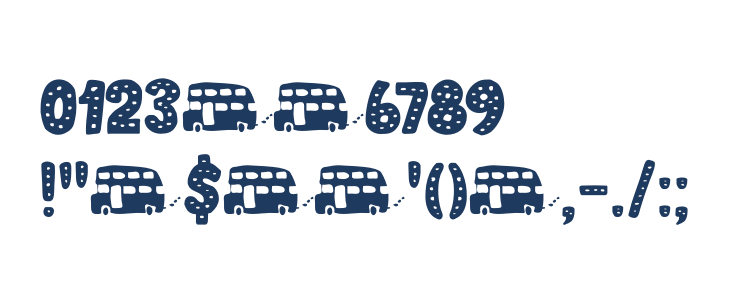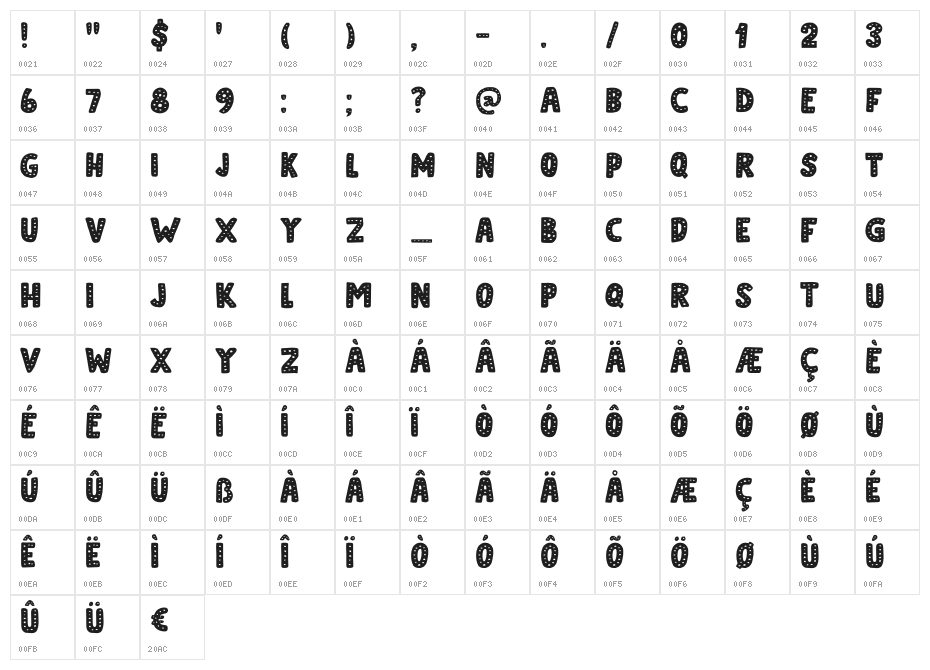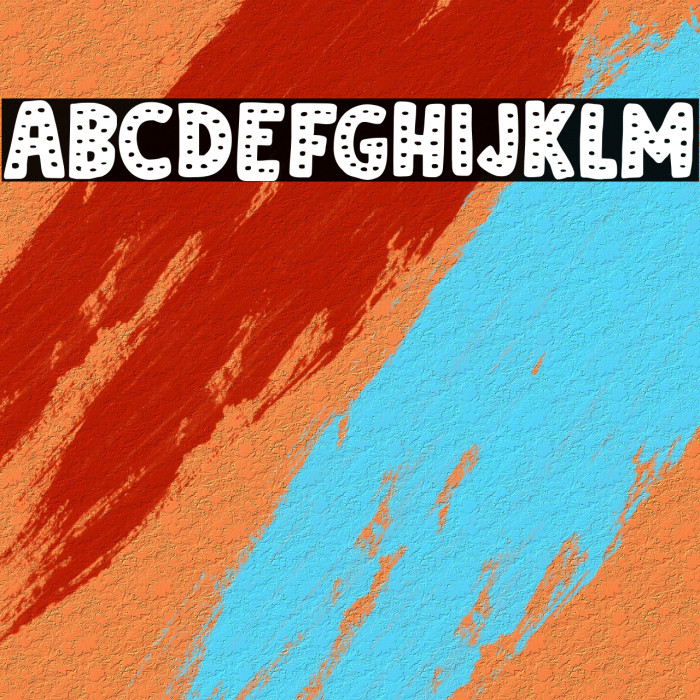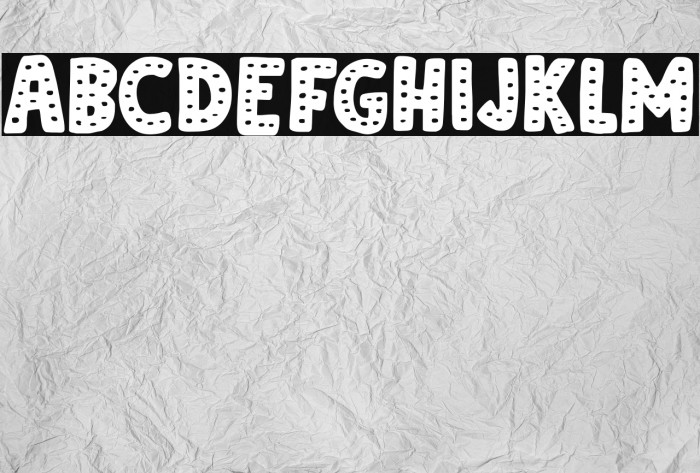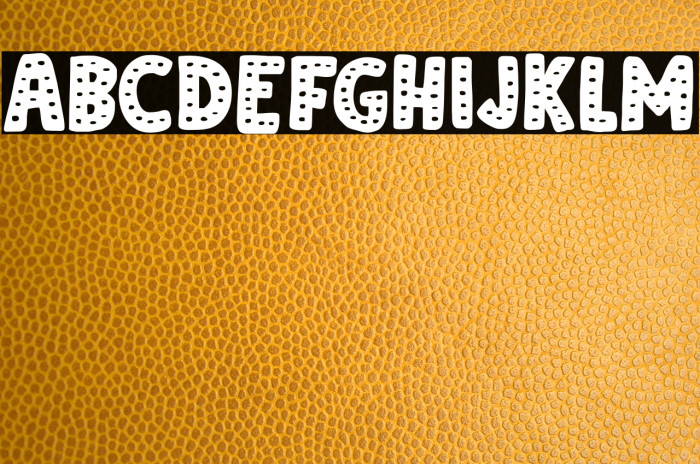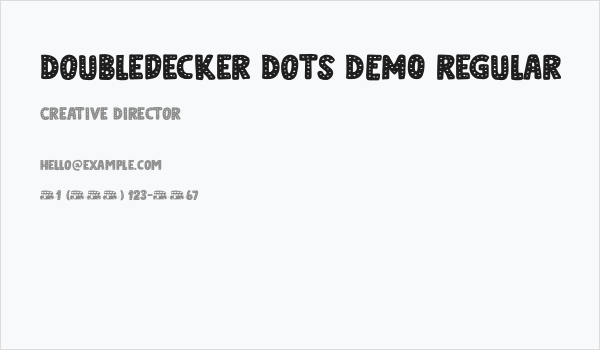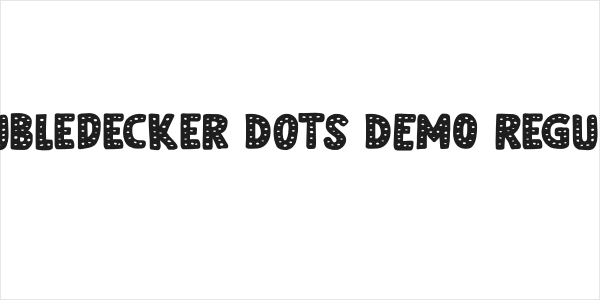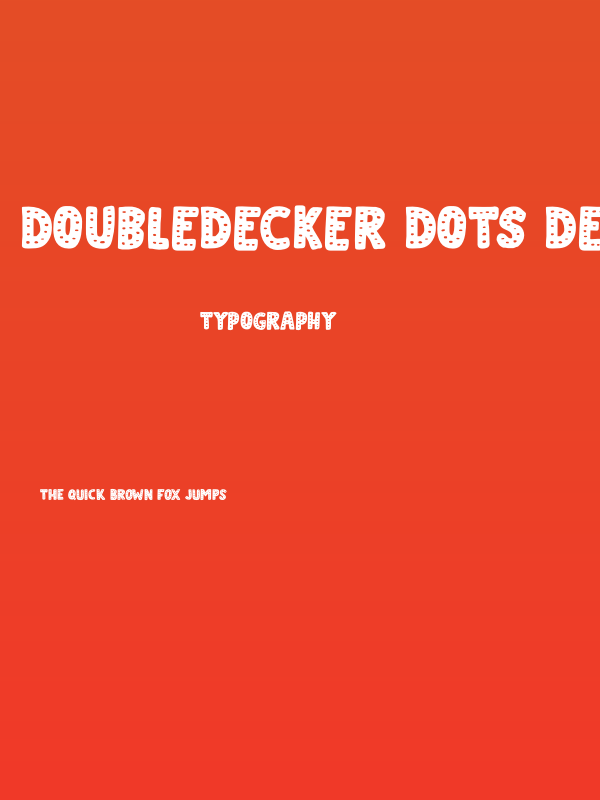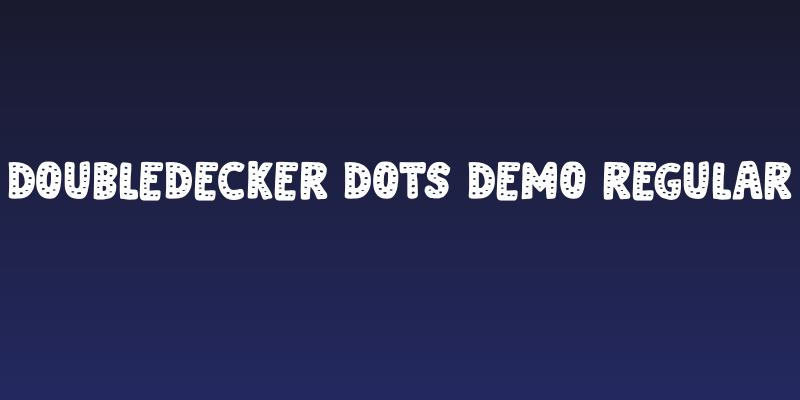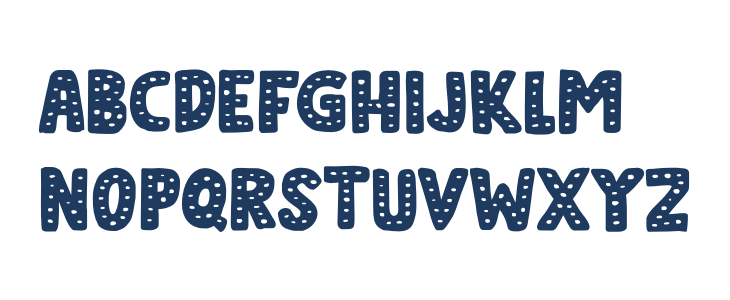
Doubledecker Dots DEMO Regular Font
Doubledecker Dots DEMO Regular Description
This playful and bold font features a unique design with dotted patterns filling each character, creating a lively and eye-catching appearance. The letters are rounded and thick, providing a strong visual impact. The font includes both uppercase and lowercase alphabets, numbers, and a selection of special characters. Its whimsical style is reminiscent of retro or vintage aesthetics, making it suitable for projects that require a fun and engaging look. The dotted design within each character adds texture and depth, enhancing its decorative appeal.
| Proposed Projects | Ideal for children's books, playful branding, party invitations, and retro-themed designs. |